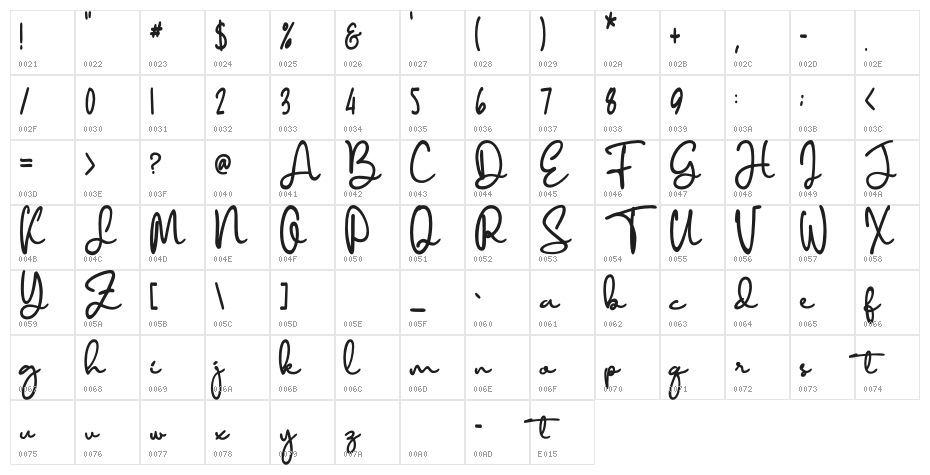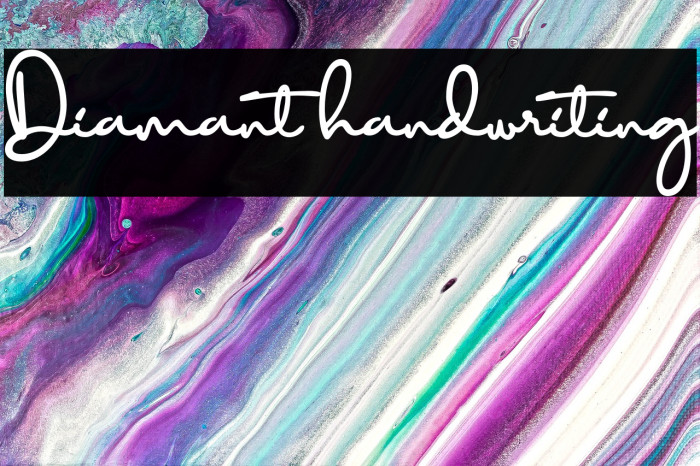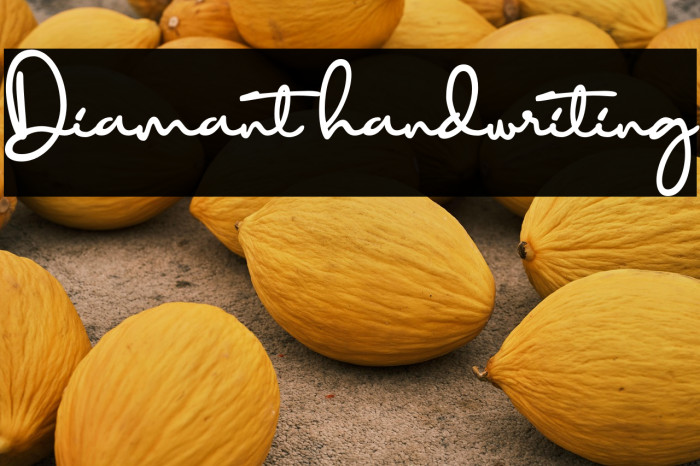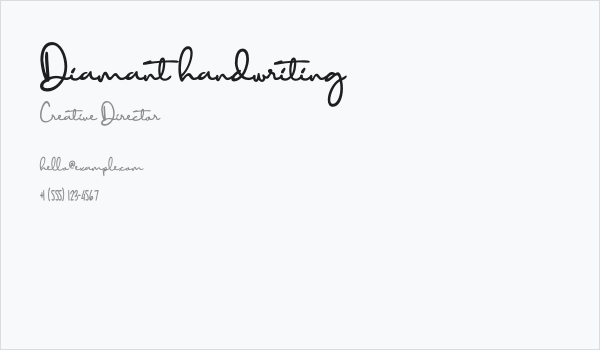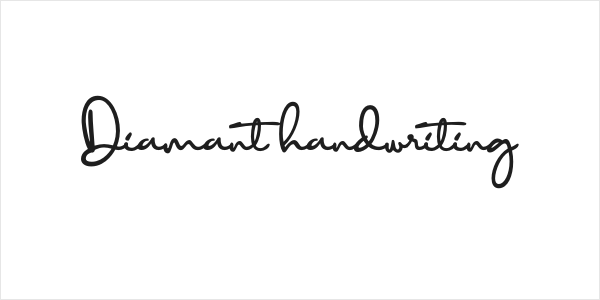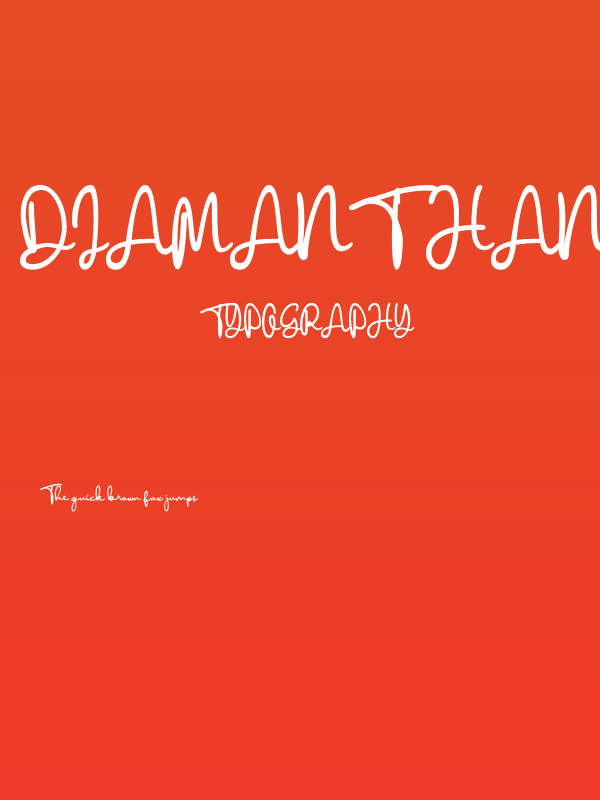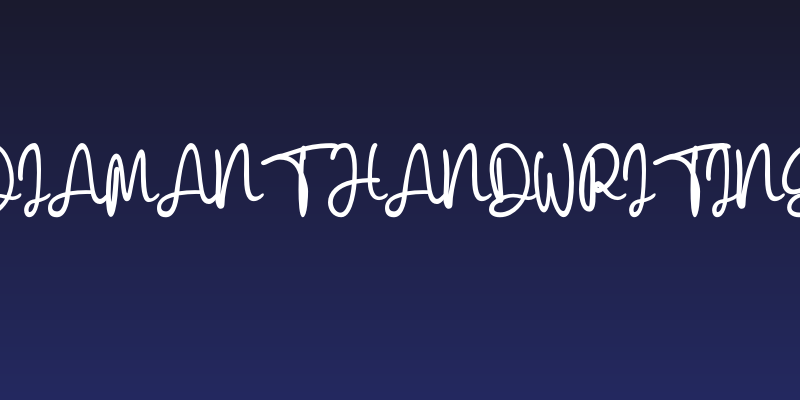
Diamant handwriting Font
Diamant handwriting Description
This font exudes a lively and dynamic handwritten style, characterized by its fluid and continuous strokes. The uppercase letters are bold and slightly slanted, giving a sense of movement and energy. The lowercase letters maintain a consistent flow, with some characters featuring loops and curls that enhance the handwritten aesthetic. The numerals are clear and legible, maintaining the same playful style as the letters. Special characters are creatively integrated, matching the overall energetic and informal vibe. This font is perfect for projects that require a personal touch or a sense of spontaneity.
| Proposed Projects | Ideal for greeting cards, personal branding, social media graphics, and creative invitations. |